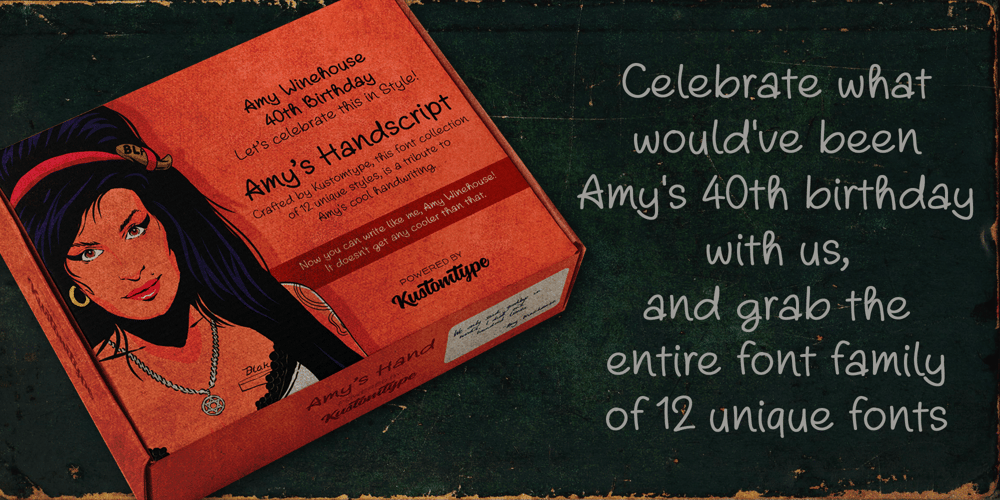
Amys Hand Font Family was designed by Coert De Decker and published by Kustomtype. Amys Hand contains 12 styles and family package options. “The Amy Winehouse Script” unveils a unique window into the artistic and personal world of the iconic British singer and songwriter, Amy Winehouse. Renowned for her soulful voice and heartfelt lyrics, Amy’s handwriting, a lesser-known facet of her life, offers a captivating story.Amy’s script mirrors her artistic and unconventional spirit, marked by artistic flourishes and cursive elegance, echoing her expressive personality. Her cursive style, chosen for its fluidity, mirrors her singing, creating a deep connection between her music and script.Her individualistic script is characterized by varied letter sizes and shapes, reflecting her nonconformist nature and her desire to stand out. It can be messy, much like her turbulent life, representing her emotional journey, marked by highs and lows.Amy’s handwriting evolved with her emotional state, sometimes appearing chaotic during difficult times. It’s important to note the limited public samples, making it challenging to draw definitive conclusions.”The Amy Winehouse Script” invites you to explore uncharted territories of her life and artistry, offering fresh insights into her unspoken expressions and enduring intrigue. In every line, you can hear the music of her words and the story of her script, reminding us how art transcends boundaries, leaving an indelible mark.